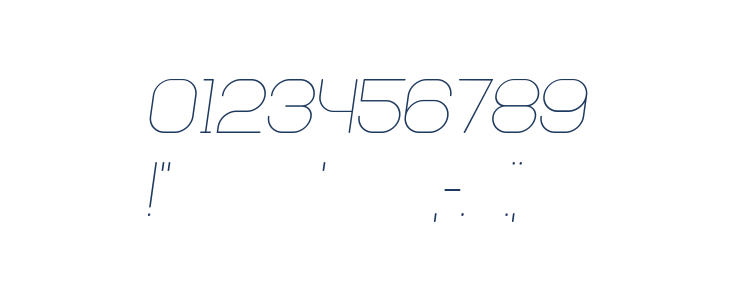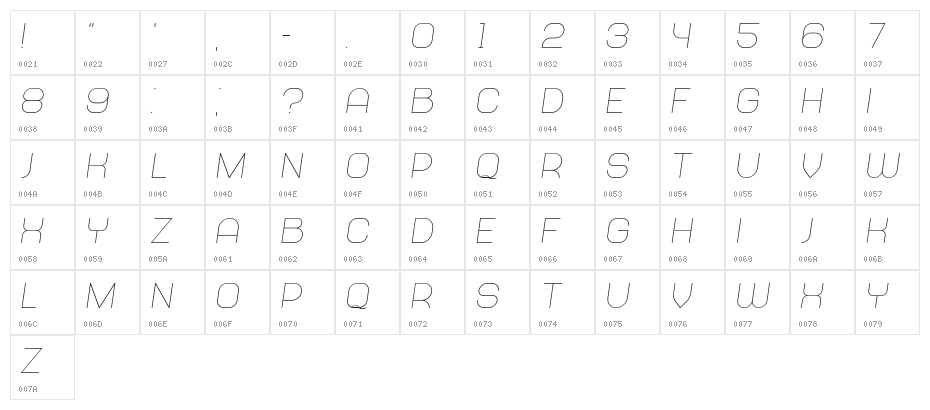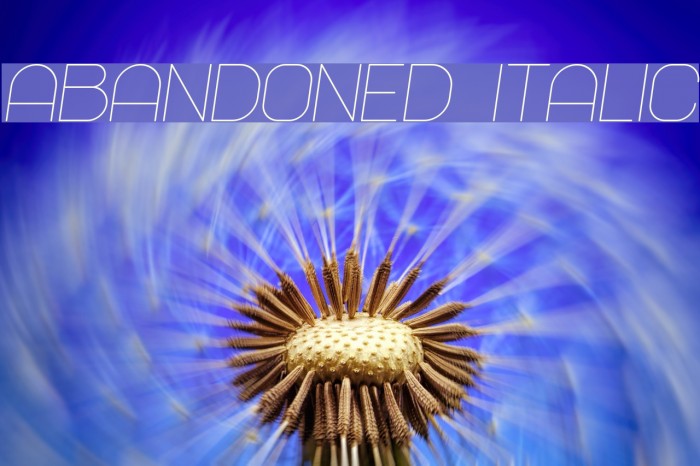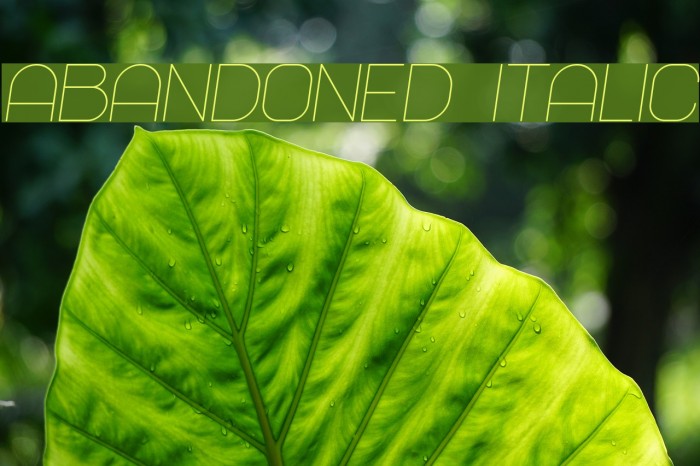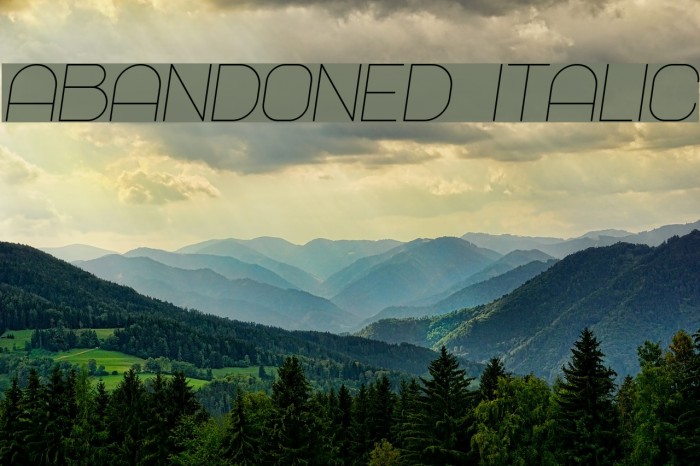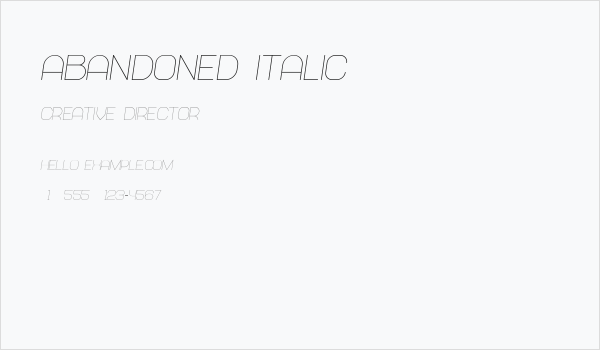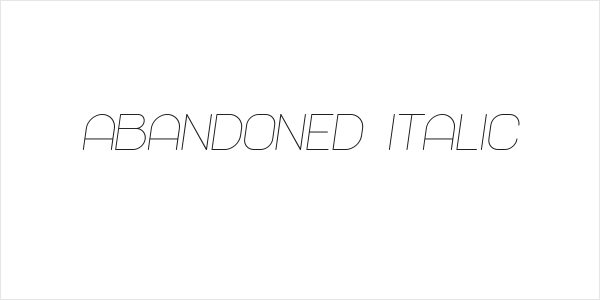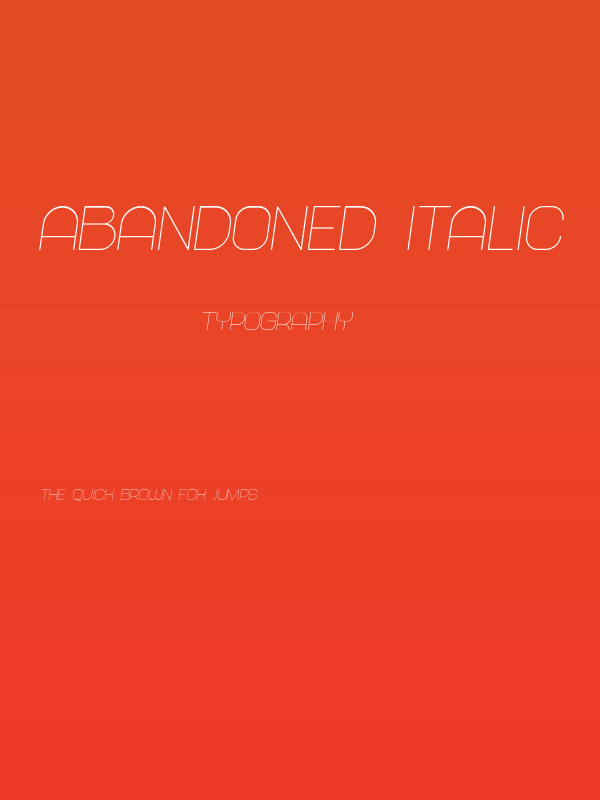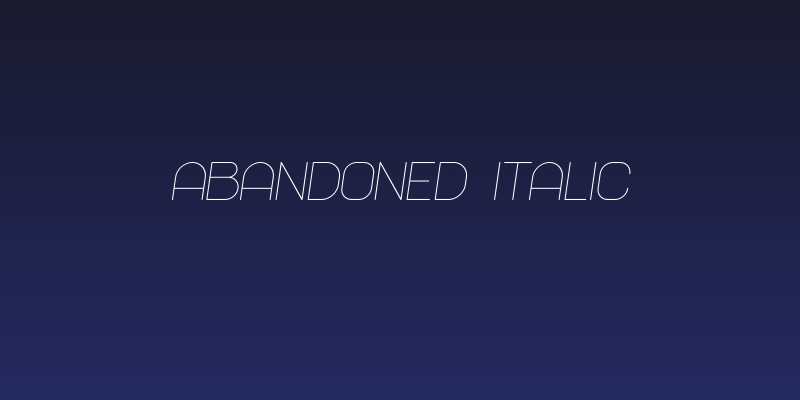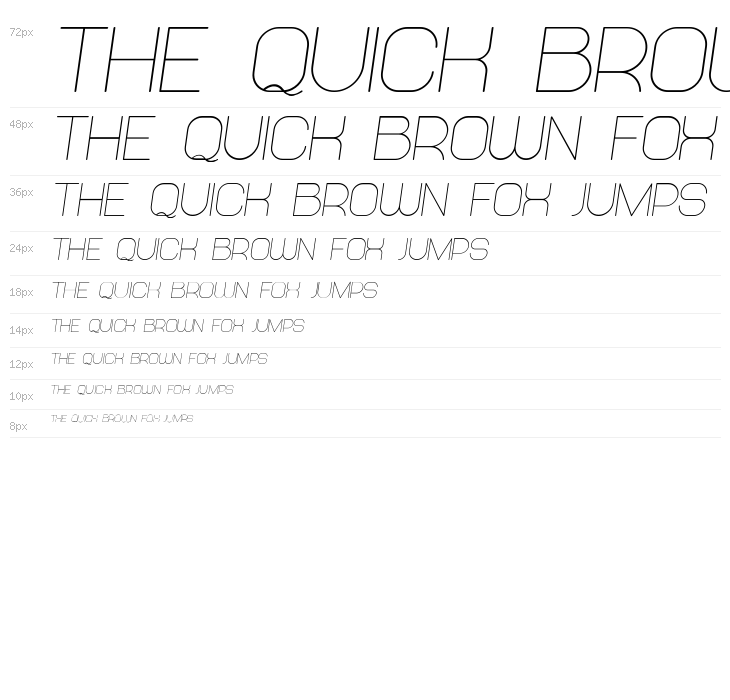
Abandoned Italic Font
Abandoned Italic Description
This font features a sleek, modern design with a distinct italic slant, giving it a dynamic and forward-moving appearance. The characters are constructed with clean, thin lines and a geometric structure, creating a sense of precision and elegance. The uppercase and lowercase letters maintain a consistent style, with uniform line thickness and minimal embellishments. The numerals are designed to match the letterforms, ensuring a cohesive look across all characters. The special characters are integrated seamlessly, maintaining the font's overall aesthetic. This font is ideal for projects that require a contemporary and sophisticated touch.
Use CaseHeadlines, Logos, Editorial Design
Proposed ProjectsIdeal for branding, editorial design, modern websites, and tech-related projects.